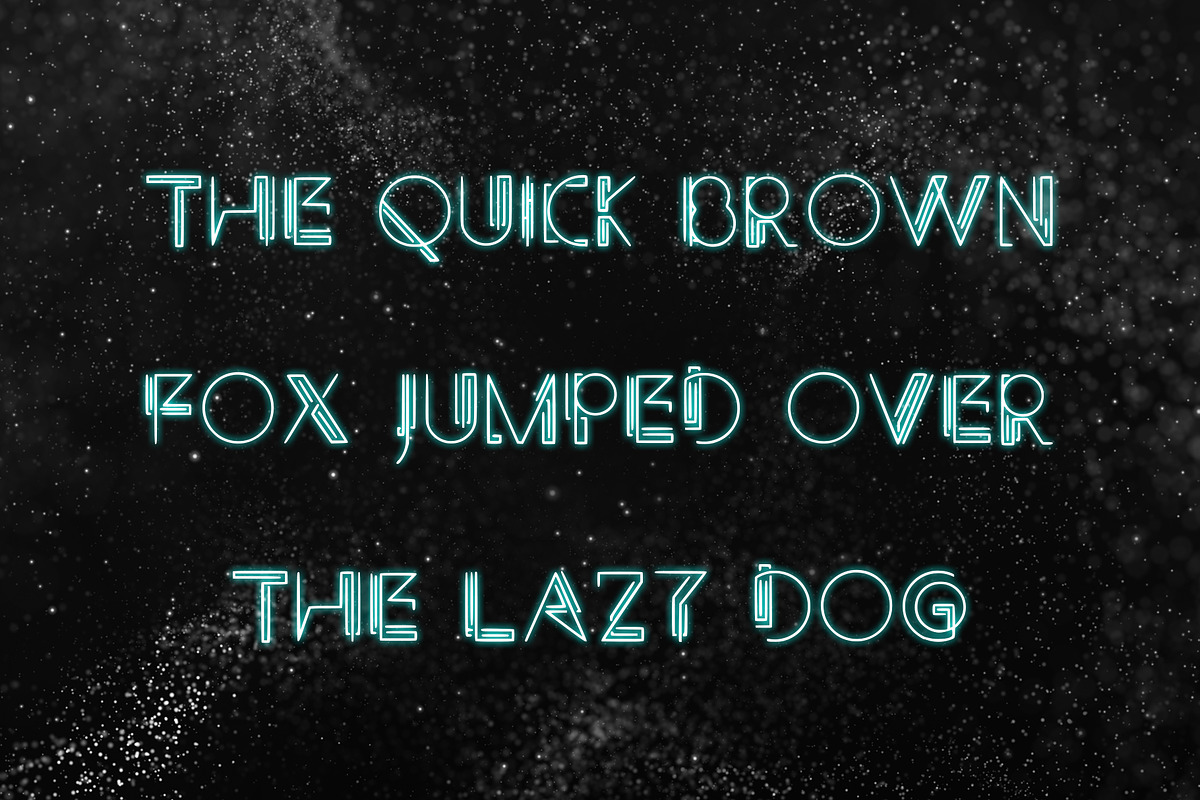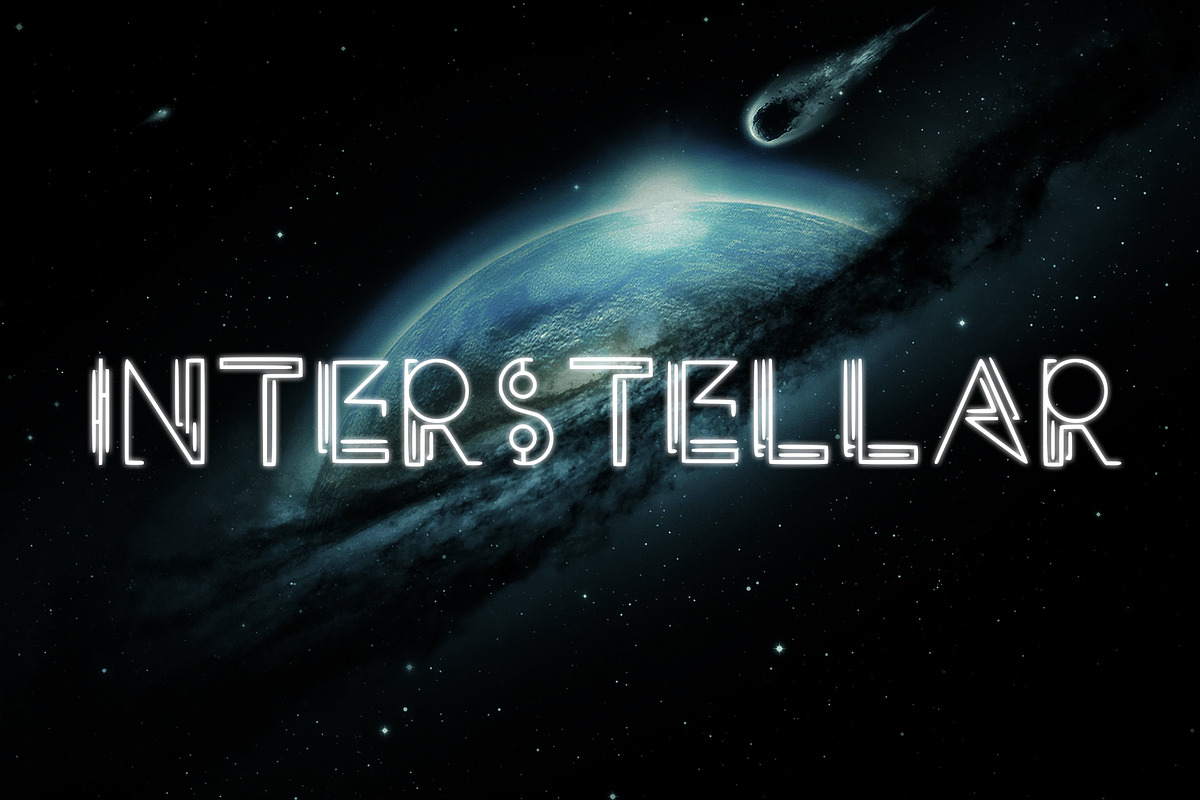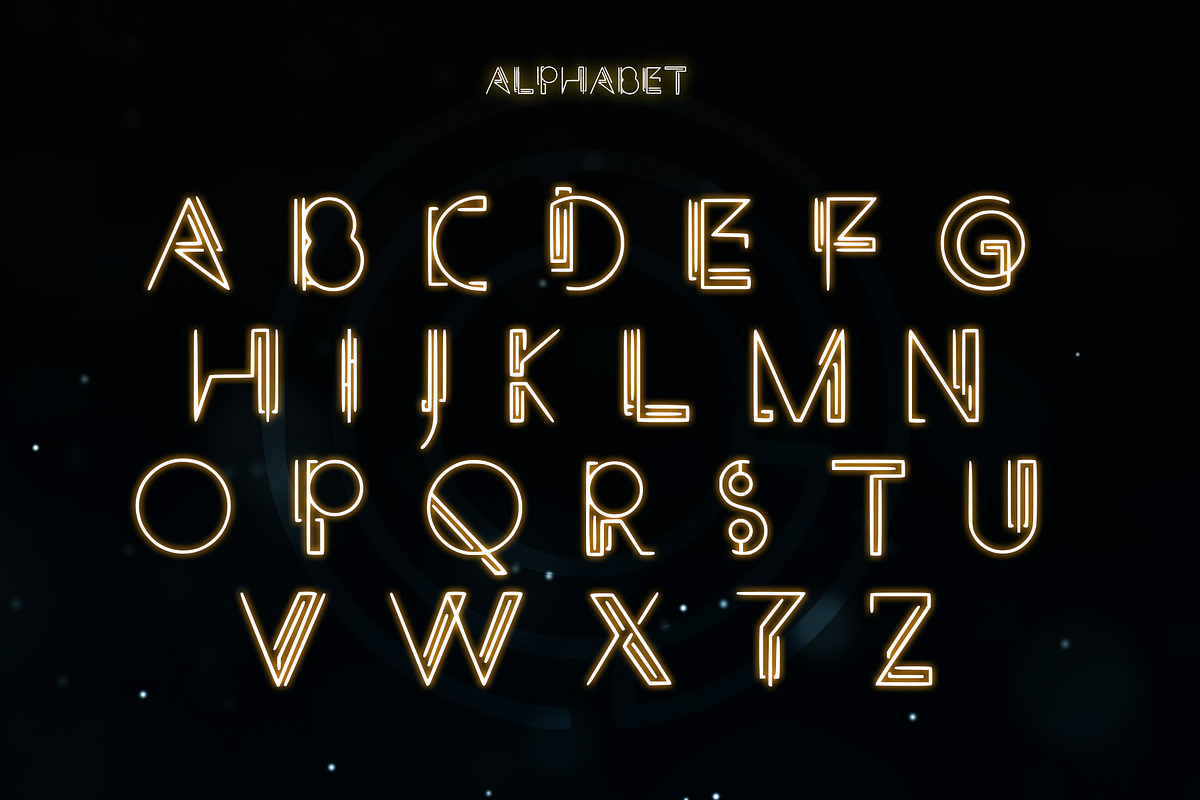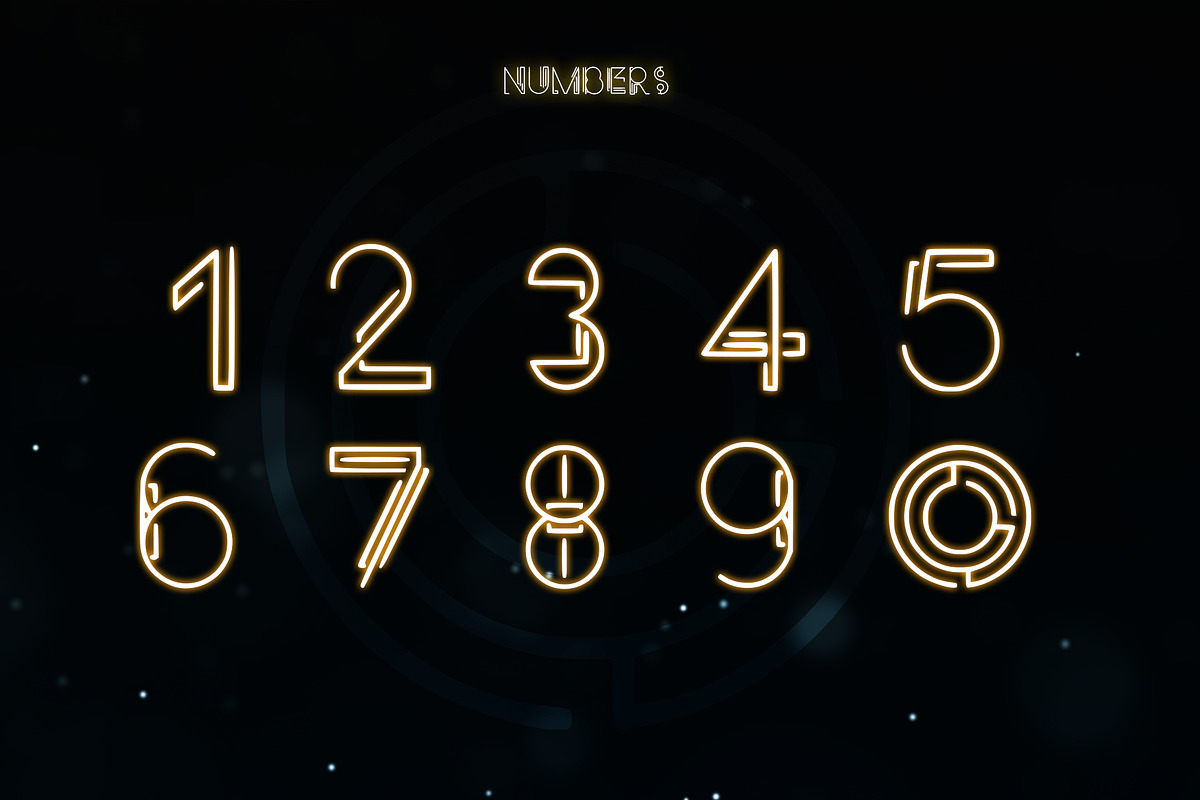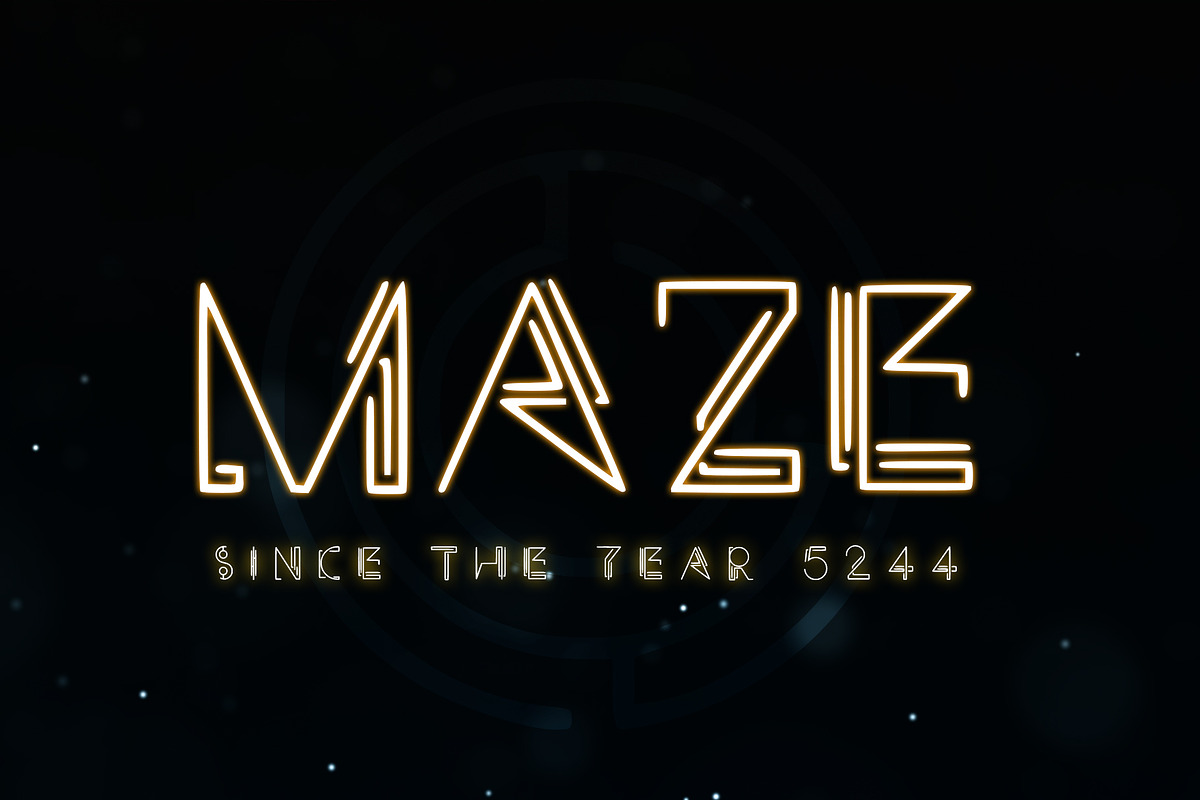
MAZE - A Technical Typeface
Maze is a unique and creative design that has been passionately handcrafted to give you a technical typeface. Inspired by science, this font is perfect for your next project, especially if you want to give a futuristic feel to it.
MAZE - A Technical Typeface by Dene Studios fits naturally into Branding, posters, packaging, typography.